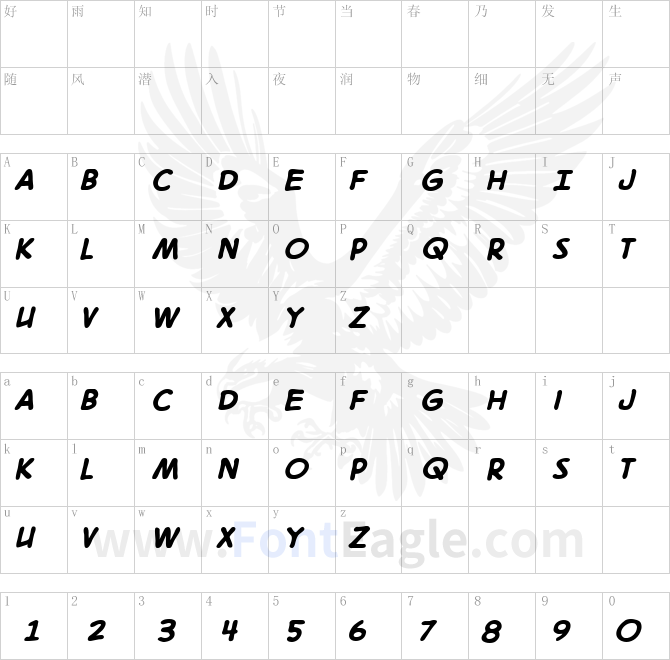
- Font name:DigitalStrip 2.0 BB
- Font Subfamily ID:NatePiekos.Blambot.com: DigitalStrip 2.0 BB Bold: 2008
- Font Full Name:DigitalStrip 2.0 BB Bold
- Postscript:DigitalStrip.BB-Bold